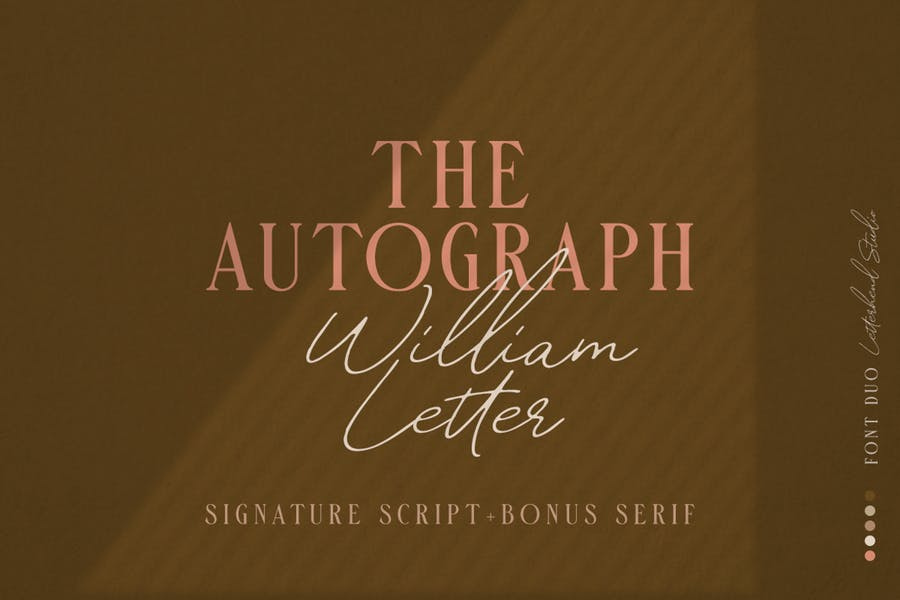
William Letter Signature Script Font
The William Letter Signature Script Font excels in various design applications including wedding invitations, luxury brand logos, personal signatures, elegant greeting cards, high-end product packaging, fashion magazines, artistic posters, social media graphics, book covers, and premium website headers. Its sophisticated script style makes it perfect for any project requiring an upscale, handwritten aesthetic.
What makes the William Letter Signature Script Font truly exciting is its authentic handwritten character that brings warmth and personality to digital designs. The flowing letterforms create natural connections between characters, mimicking genuine penmanship with artistic flair. Each glyph features carefully crafted curves and elegant flourishes that add sophistication to any text. The font's organic feel contrasts beautifully with modern digital layouts, creating visual interest and emotional connection with viewers.
The William Letter Signature Script Font family typically includes regular weight with extensive character sets, featuring uppercase and lowercase letters, numerals, punctuation marks, and special characters. Many versions also include stylistic alternates, ligatures, and swashes that provide designers with creative flexibility. The font may offer different weights or styles within the same family, allowing for hierarchical typography and varied design applications.
This premium typeface stands out in the crowded script font market due to its exceptional legibility despite its decorative nature. Unlike many script fonts that sacrifice readability for style, William Letter Signature Script Font maintains clarity even at smaller sizes. The carefully balanced letter spacing and consistent baseline create professional results across different media formats, from print materials to digital displays.